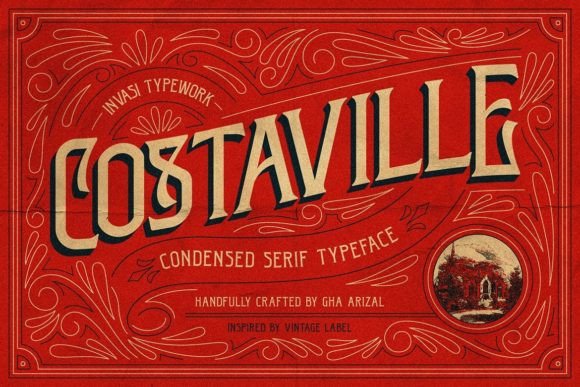
Introducing Costaville Font: A Timeless Vintage Display Font
Are you looking for a font that can add a touch of elegance and sophistication to your designs? Look no further than Costaville Font, a vintage display font inspired by the luggage labels of the 19th Century. This exquisite font is perfect for designers and crafters who want to add a unique and characterful touch to their work.
The Inspiration Behind Costaville Font
Costaville Font is inspired by the luggage labels of the 19th Century, which were known for their intricate designs and classic typography. The font’s creator aimed to capture the essence of these vintage labels and bring them to life in a modern digital format. The result is a font that exudes a sense of nostalgia and timelessness, perfect for designers who want to add a touch of vintage charm to their work.
Key Features of Costaville Font
Costaville Font is a condensed serif typeface that comes in an all-caps style, making it perfect for display needs such as signage, posters, logos, labels, headlines, and cover designs. The font features a unique combination of thick and thin lines, which gives it a distinctive and eye-catching look. Some of the key features of Costaville Font include:
- PUA Encoding: Costaville Font is PUA encoded, which means that you can access all of the amazing glyphs and ligatures with ease. This makes it easy to use the font in your designs and ensures that you can get the most out of its features.
- Condensed Serif Typeface: The font’s condensed serif typeface makes it perfect for display needs, as it can fit a lot of text into a small space while still looking elegant and sophisticated.
- All-Caps Style: Costaville Font comes in an all-caps style, which gives it a strong and confident look that’s perfect for headlines, titles, and other display text.
Uses for Costaville Font
Costaville Font is a versatile font that can be used in a wide range of design applications. Some of the most popular uses for the font include:
- Signage: The font’s bold and eye-catching design makes it perfect for signage, whether you’re creating a sign for a business, event, or exhibition.
- Posters: Costaville Font is a great choice for posters, as it can add a touch of elegance and sophistication to your design.
- Logos: The font’s unique and characterful design makes it perfect for logos, whether you’re creating a logo for a business, product, or service.
- Labels: Costaville Font is a great choice for labels, as it can add a touch of vintage charm to your design.
- Headlines: The font’s bold and eye-catching design makes it perfect for headlines, whether you’re creating a headline for a newspaper, magazine, or website.
- Cover Designs: Costaville Font is a great choice for cover designs, as it can add a touch of elegance and sophistication to your design.
Why Choose Costaville Font?
- Unique and Characterful Design: Costaville Font has a unique and characterful design that will add a touch of elegance and sophistication to your work.
- Versatile: The font is versatile and can be used in a wide range of design applications, from signage and posters to logos and labels.
- High-Quality: The font is high-quality and comes with a range of features, including glyphs and ligatures, that will help you to create stunning designs.